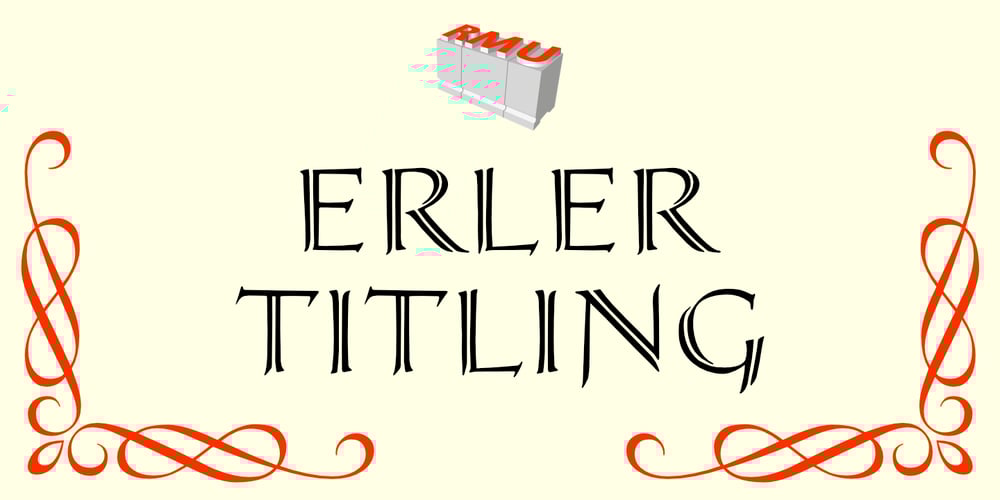
Erler Titling Font Family was designed by Ralph M. Unger and published by RMU. Erler Titling contains 1 styles and family package options. Herbert Thannhaeuser’s 1953 titling font Erler-Versalien which was distributed by Typoart in hot-metal times, was carefully redrawn and redesigned. To preserve its handwritten character, irregularities in the letters’ strokes were left as they are. This font spreads best its beauty in book titles, magazines, diplomas, greeting cards or as initials.